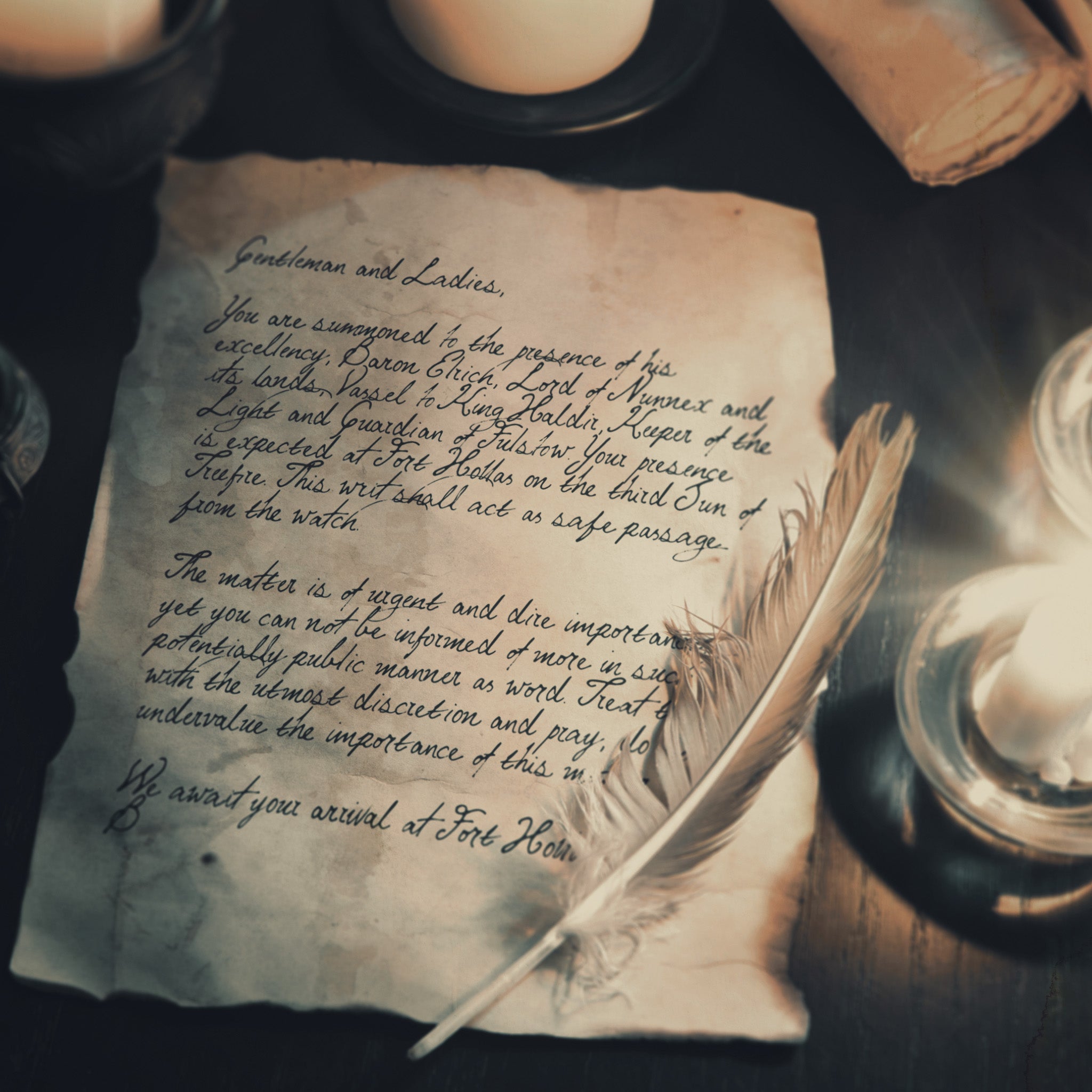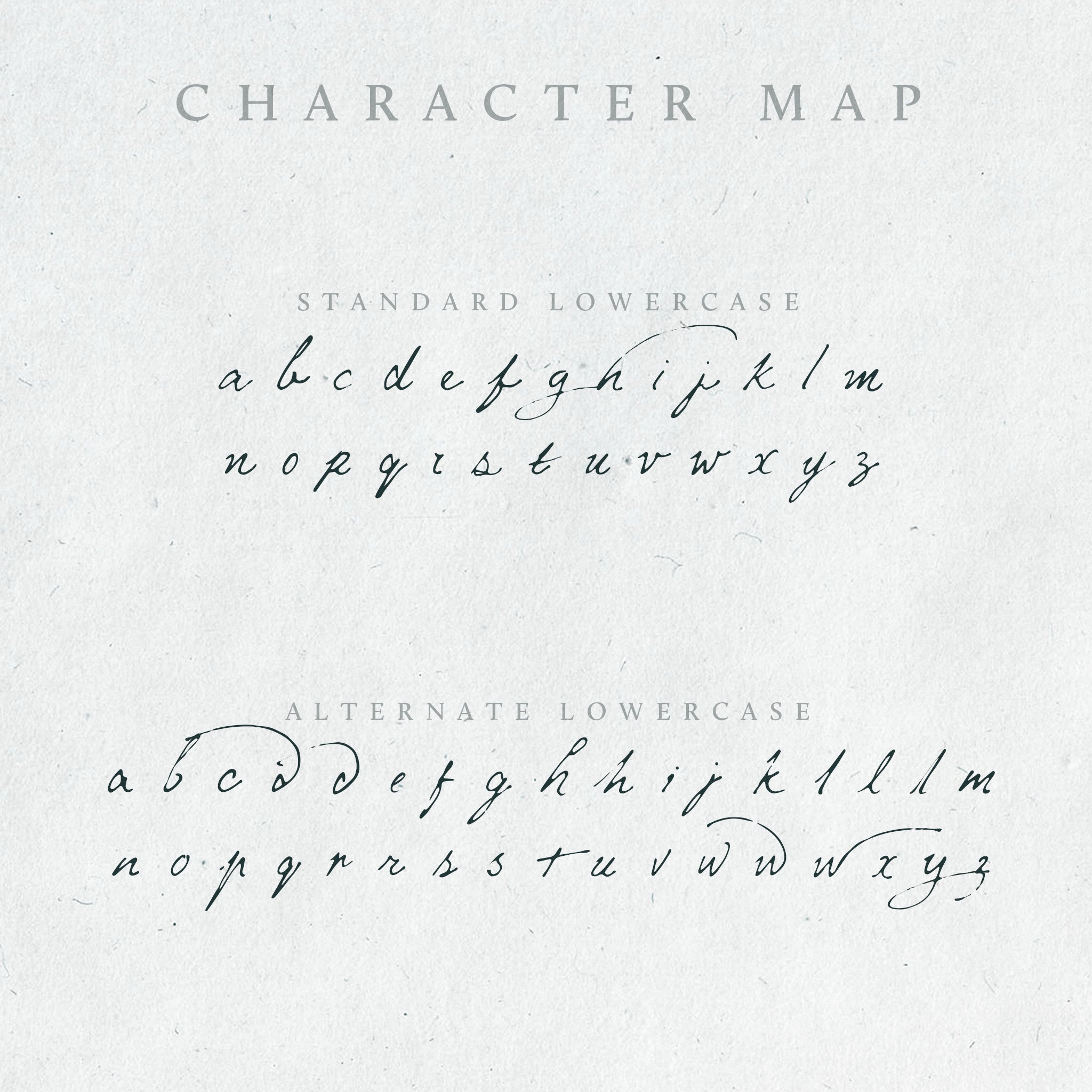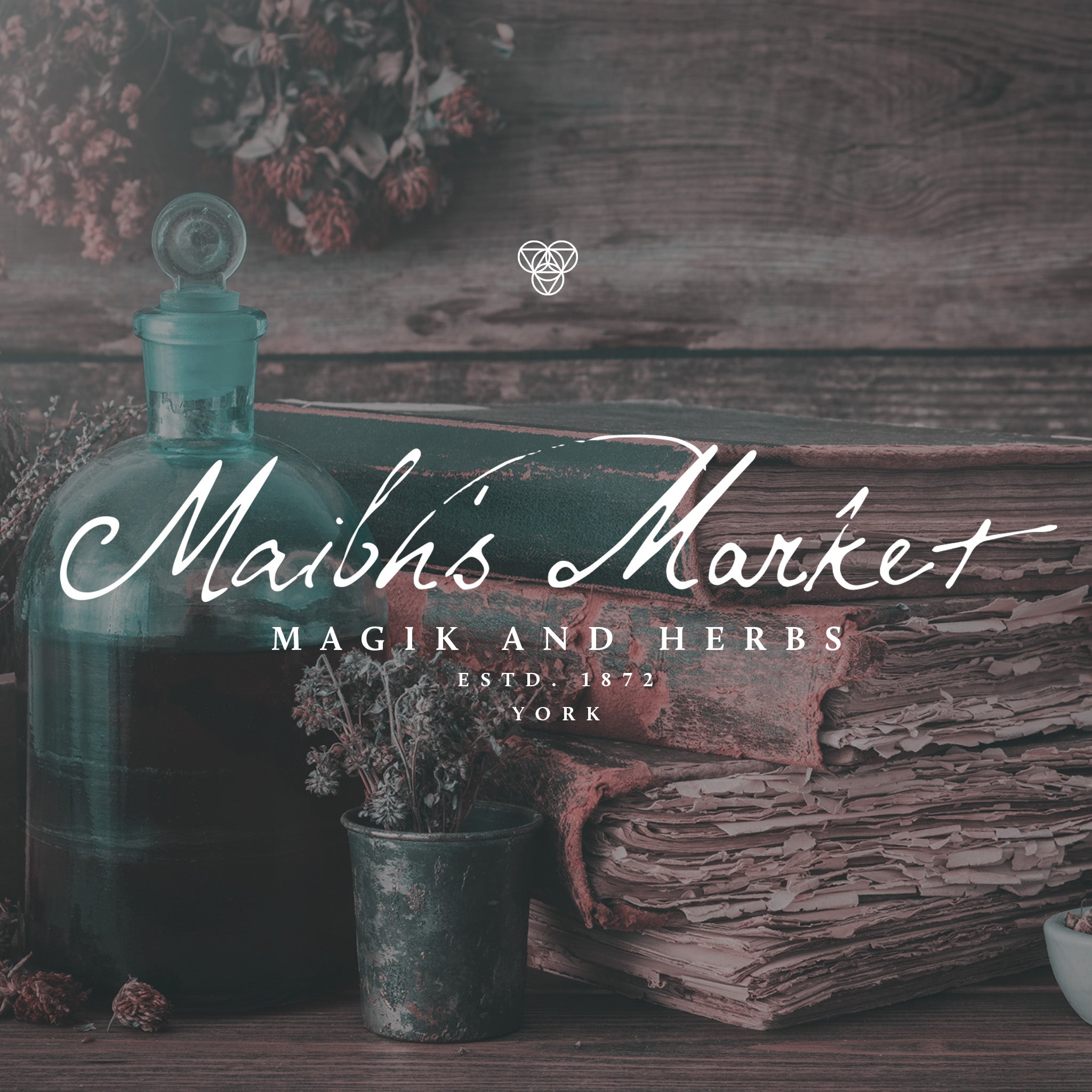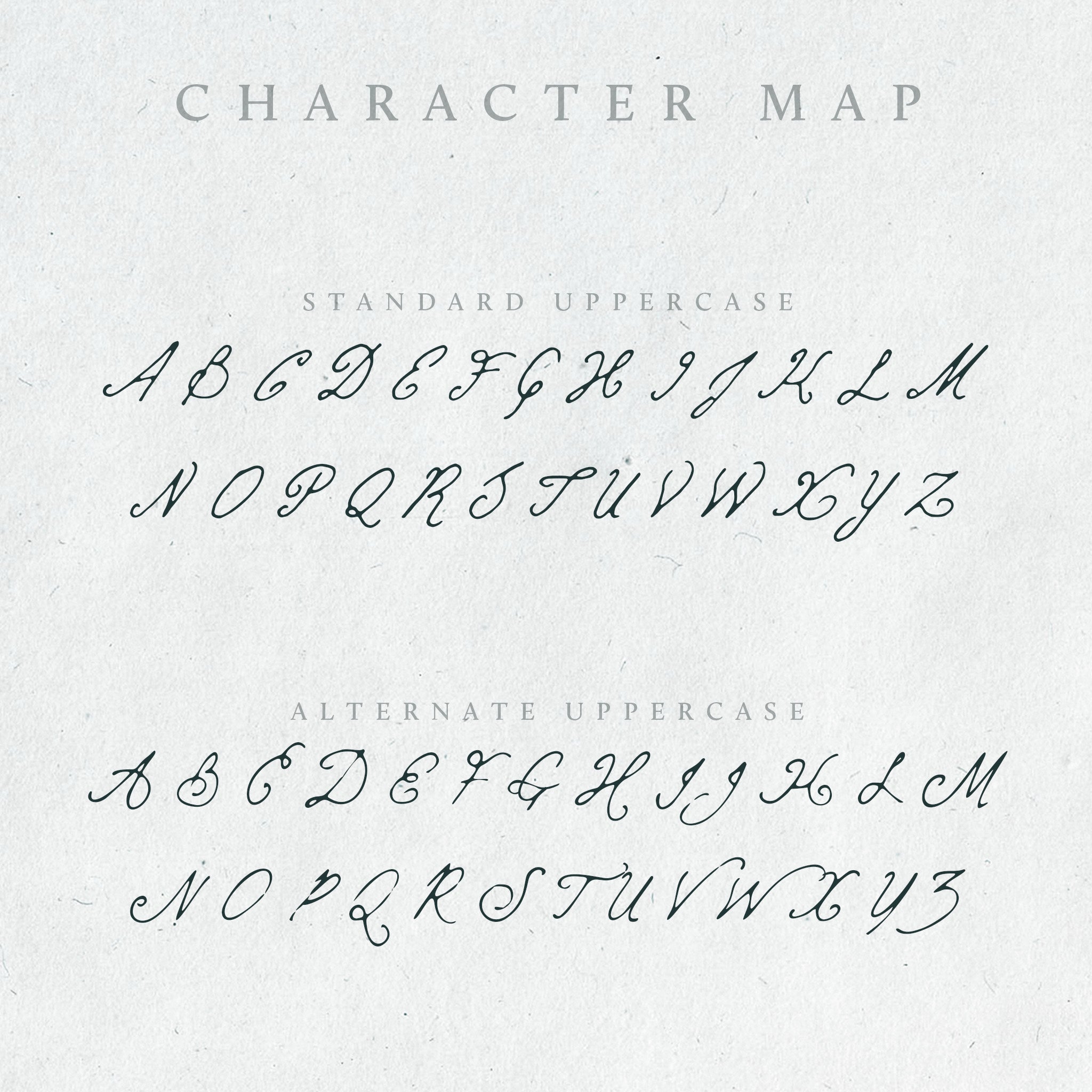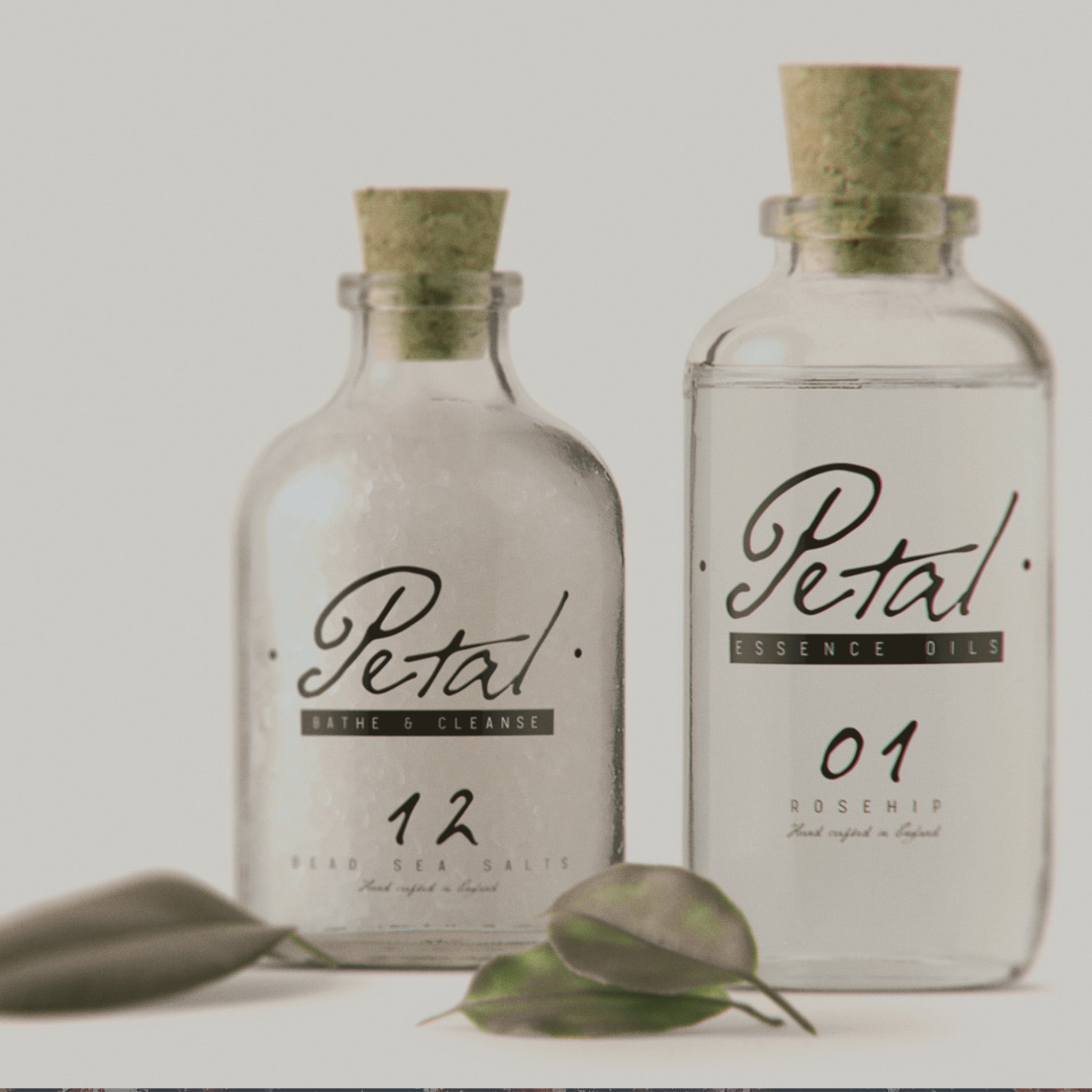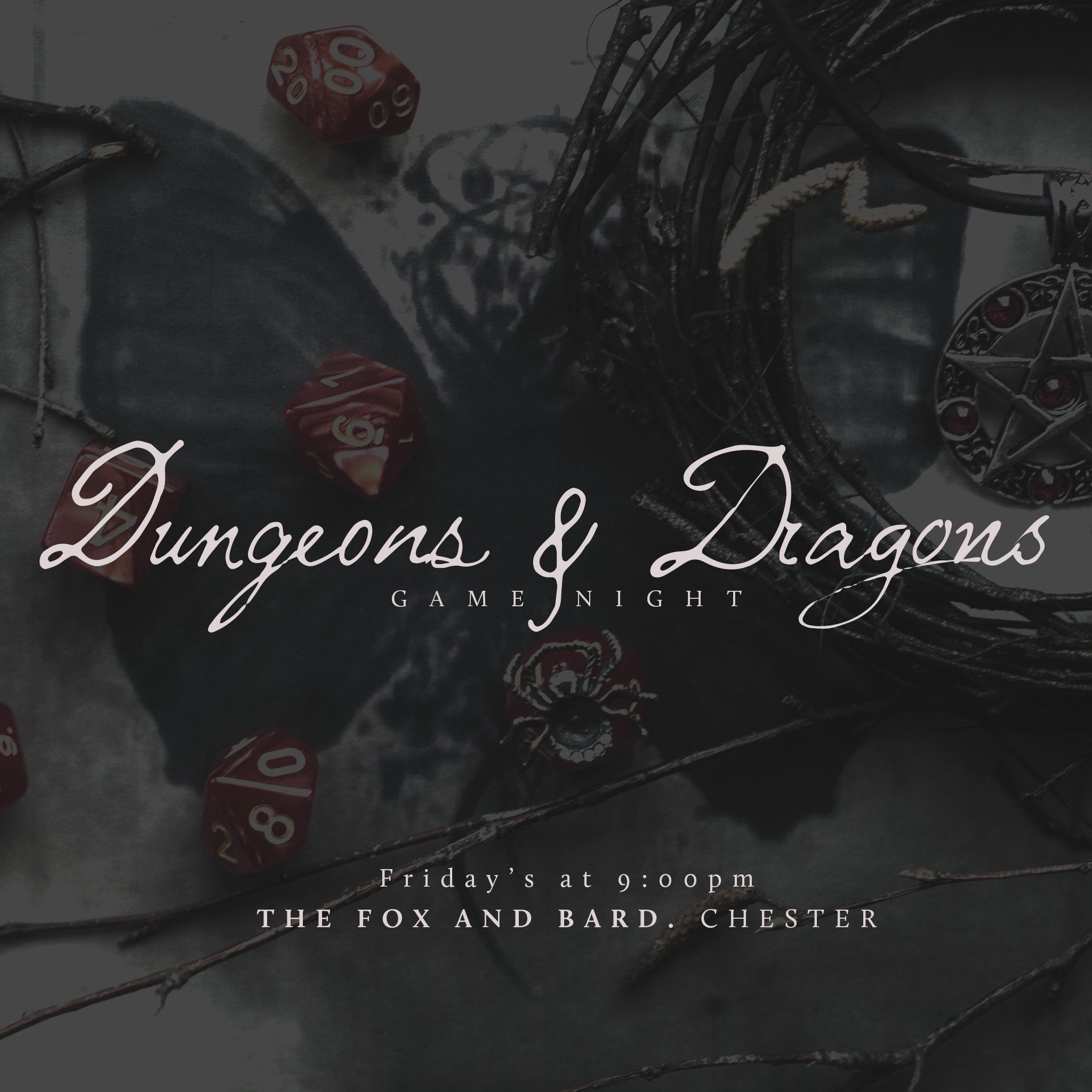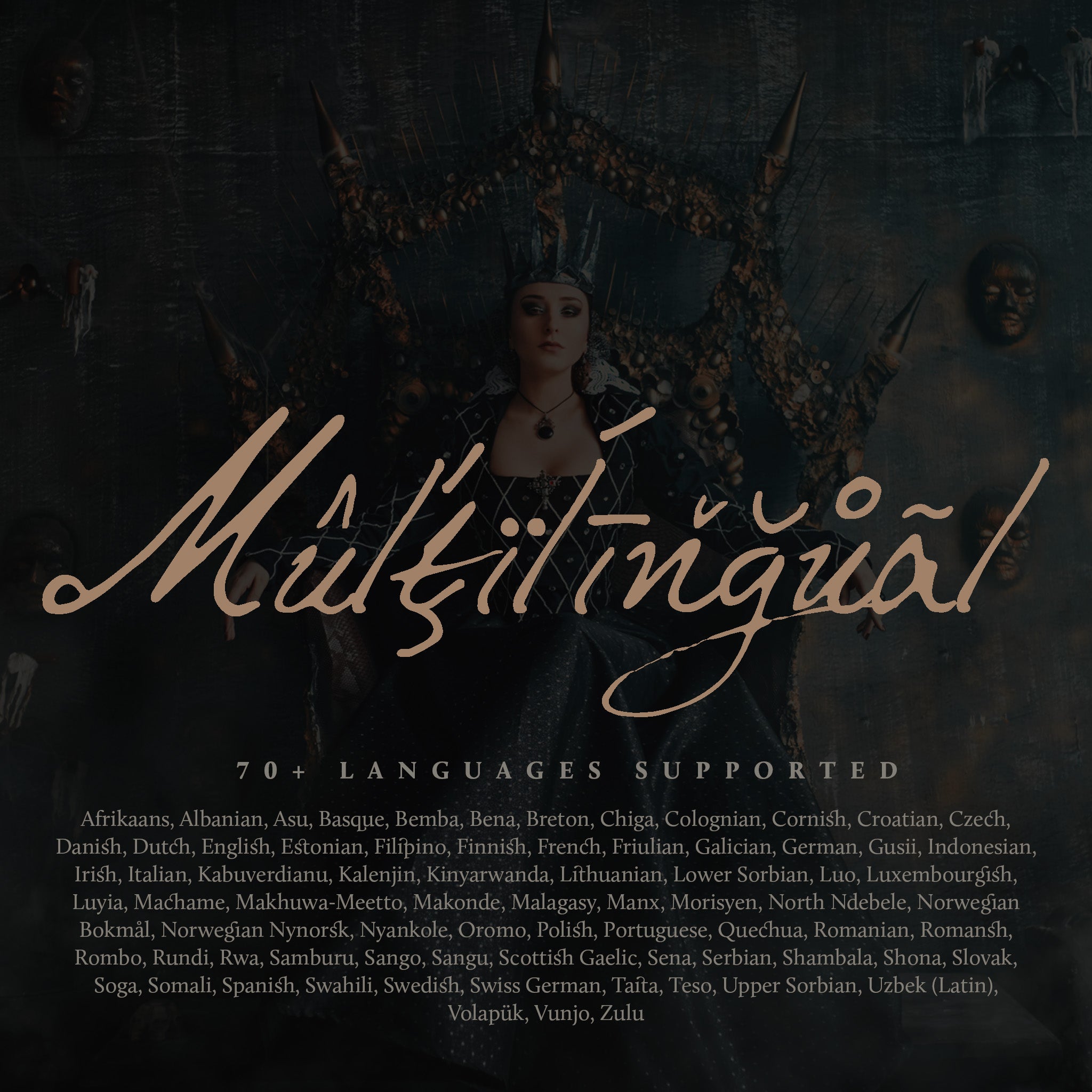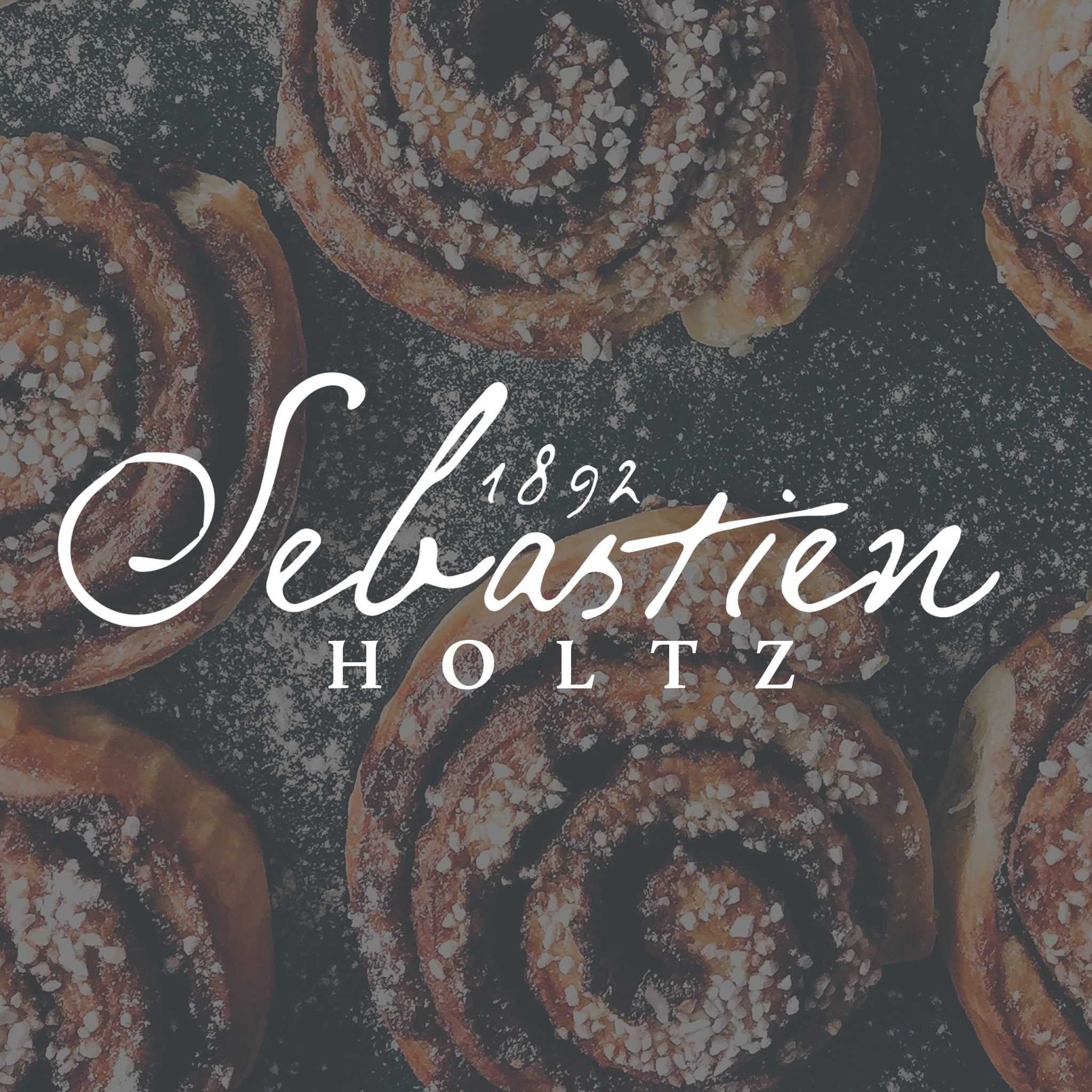
Mythshire Vintage Script
Mythshire is an elegant, hand-drawn fantasy script font inspired by the cursive and personality-rich handwriting styles of historical archives. Perfect for adding organic flow to your tabletop RPG worldbuilding, creating gaming session props like letters and invites, or even labels for poisons and potions, should thee be a master of alchemy!
- Mythshire Script Font: Multi-featured typeface with extensive ligatures and character alternates.
Not just for gaming nerds
Mythshire is not exclusively for the realms of table-top roleplaying games, of the desk of a Dungeon Master; its natural and authentic handwritten forms work wonderfully in or any project that needs to communicate a message of nature and being hand-crafted, from herbalist branding and grimoire pages, to natural hand-crafts, wedding invites and more.